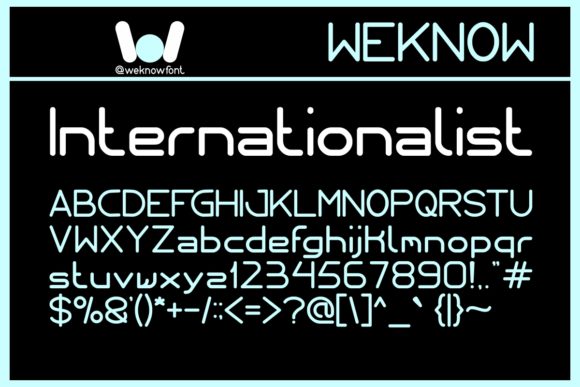
Introducing Internationalist Font, a techno-styled and sharp display font that will transform your designs into captivating masterpieces. A creation of weknow, this font family is a visual symphony that blends modern aesthetics with timeless elegance.
Internationalist Font is more than just a collection of glyphs; it's an artistic tool that empowers you to create designs that speak volumes. Whether you're crafting a distinctive logo, designing eye-catching product packaging, or creating an invitation that exudes sophistication, Internationalist Font is your perfect companion.
Immerse yourself in the world of Internationalist Font and discover a universe of typographic possibilities. Unleash your creativity and let your designs take center stage. The sharp edges and clean lines of Internationalist Font command attention, making your words leap off the page and into the hearts of your audience.
With Internationalist Font, you'll elevate your designs to new heights. Its versatility knows no bounds, allowing you to effortlessly adapt it to any project, from bold branding statements to heartfelt quotes. Internationalist Font is the key to unlocking your creative potential and crafting designs that resonate with your audience.